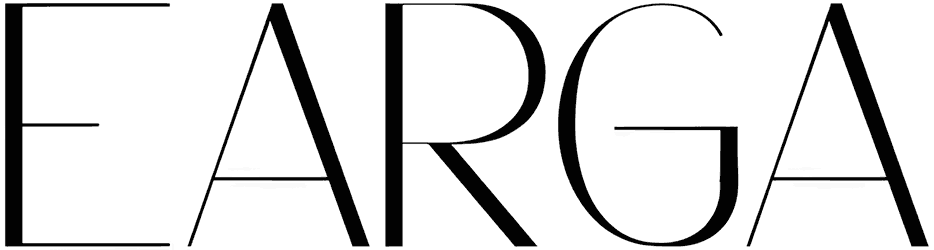
Earga Font
With a royal and confident face, you can display your design in a reliable and original mood. This sans serif font with delicate and modern outward is capable of bringing a minimal and salient vibe to your words. Use Earga with your creativity and illustrate various designs, for instance, business cards, flyers, magazines, and so forth.